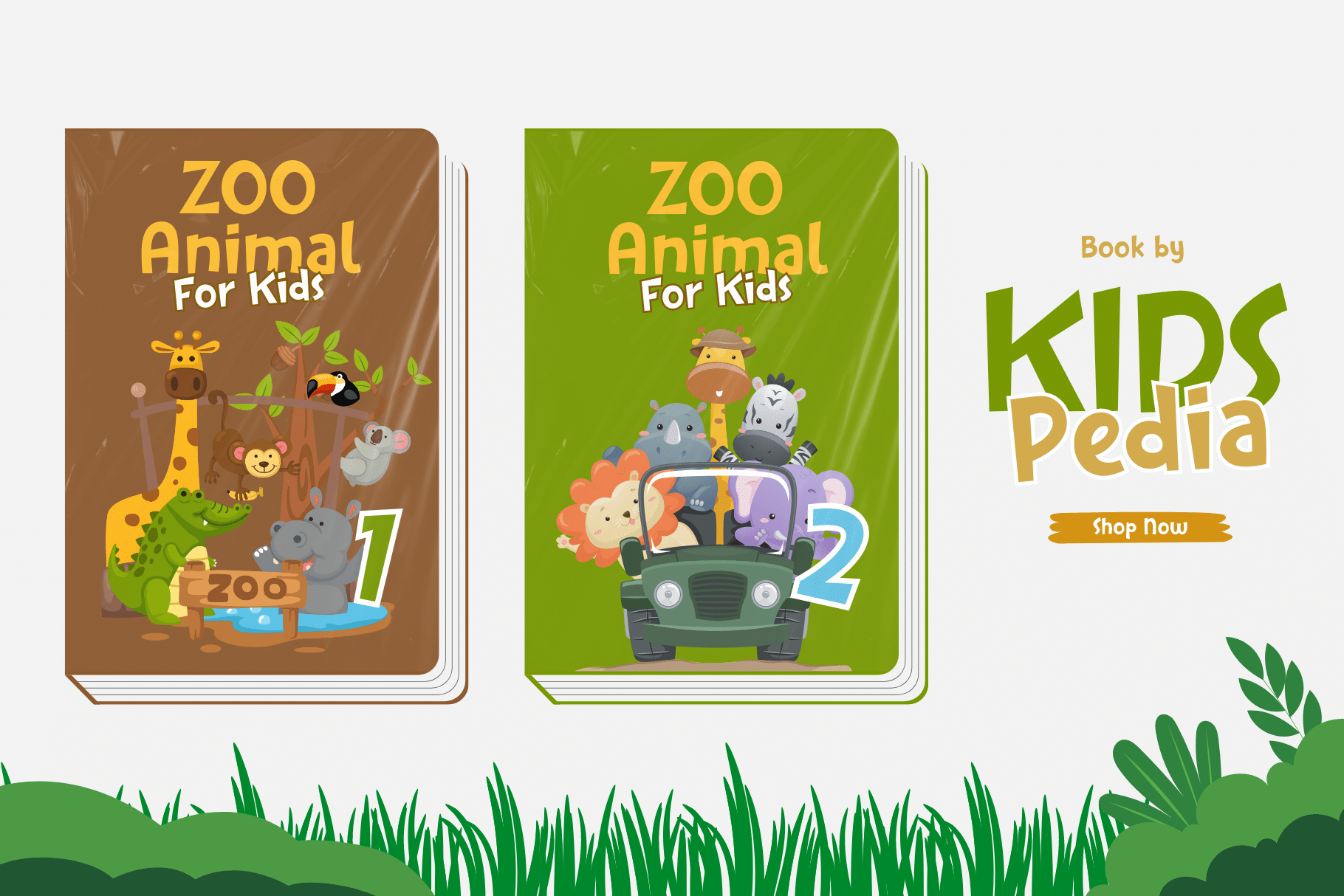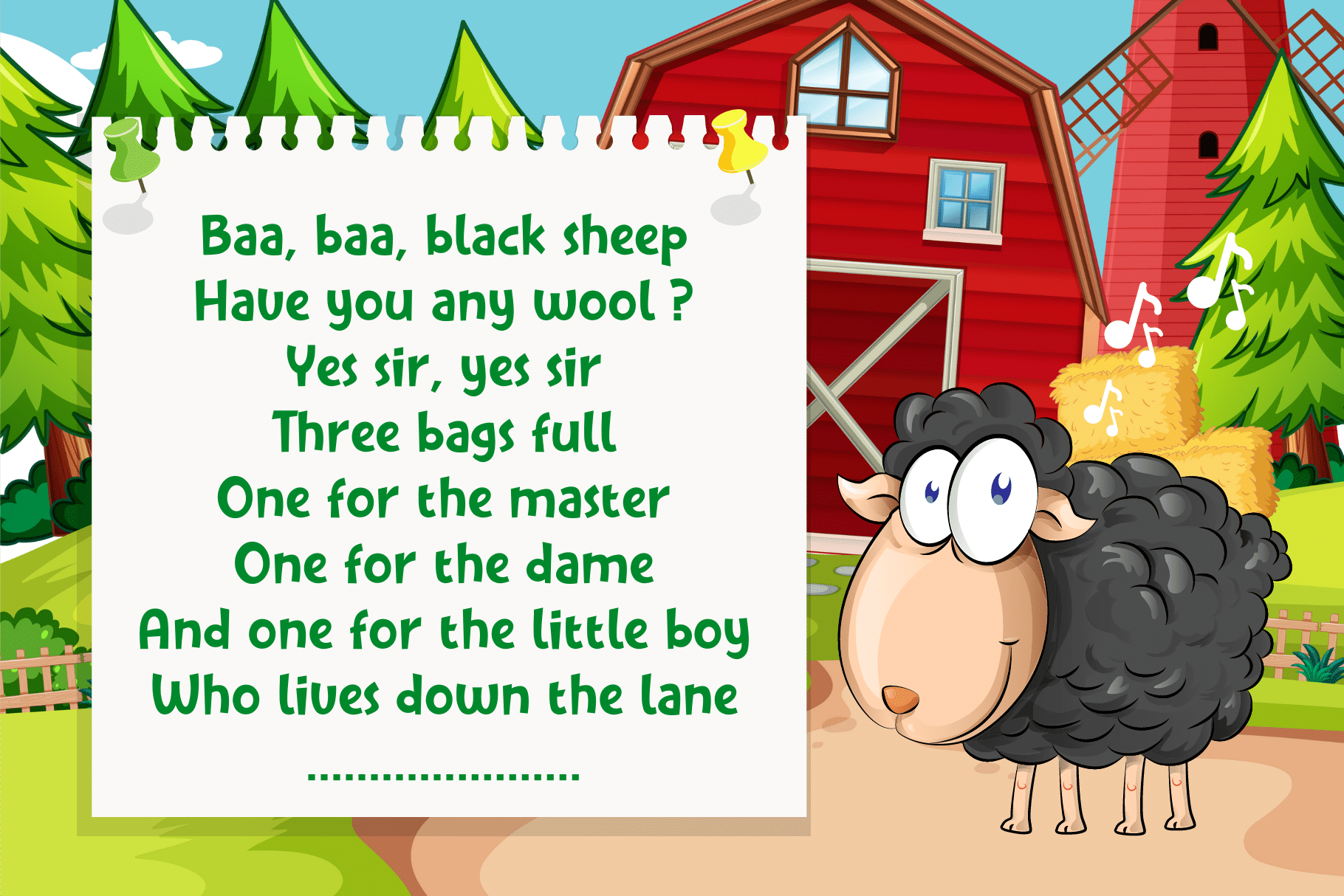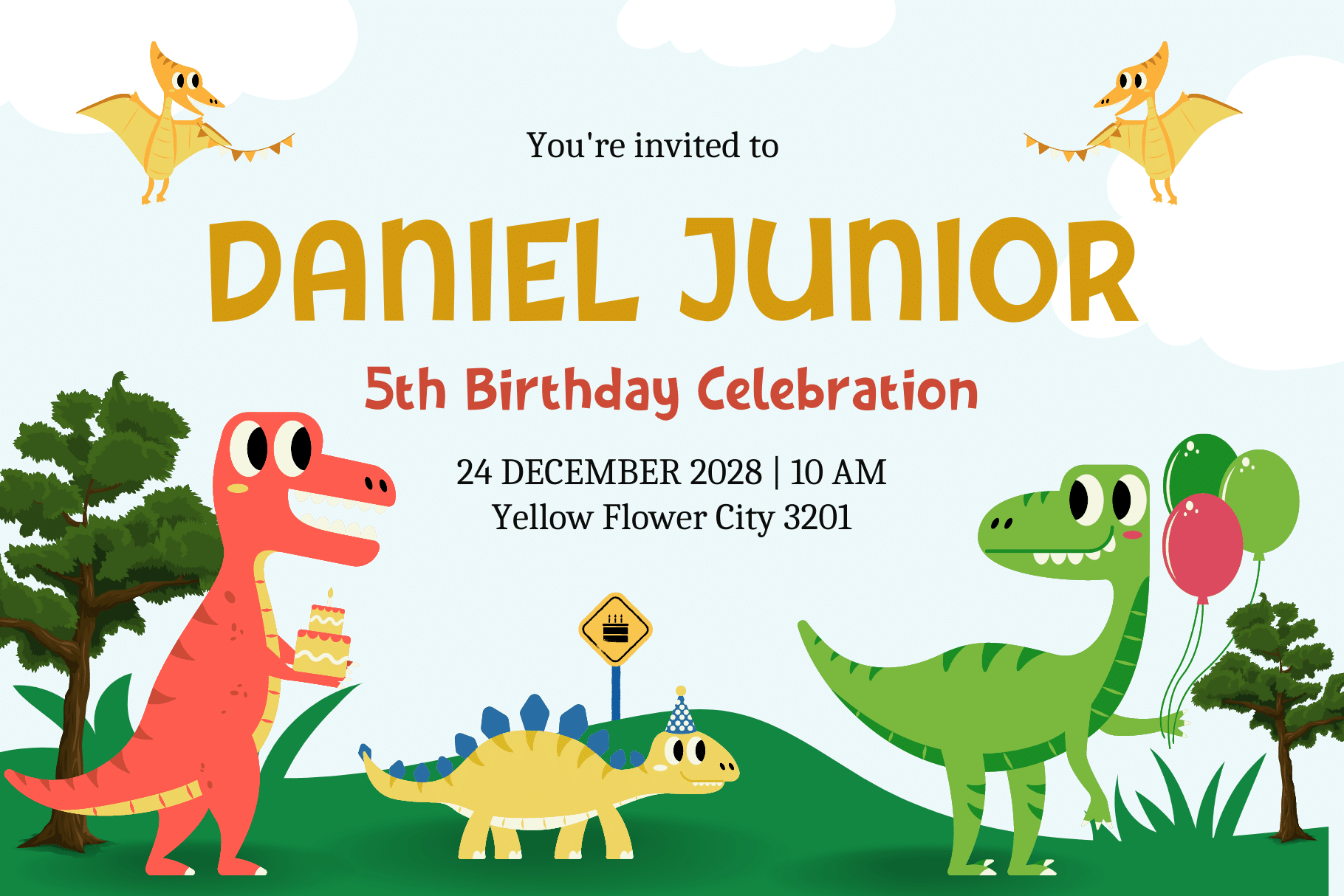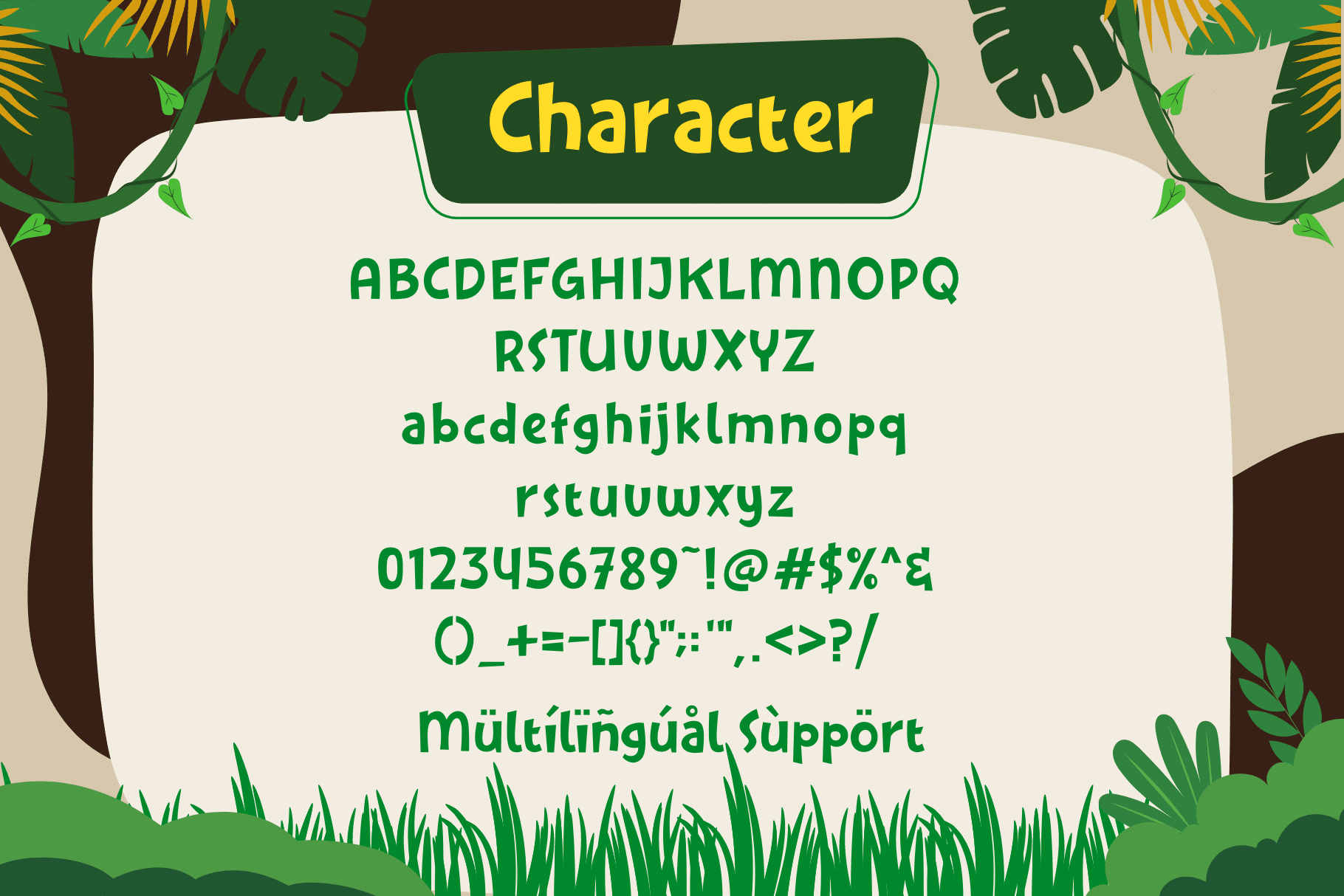
Kicau Mania Font
Kicau Mania is a playful font that captures the joy and nostalgia of childhood. With its charming letterforms and whimsical curves, it adds a fun and lighthearted vibe to any design. Perfect for children’s books, branding, and projects that need a playful touch. Let “Kicau Mania” bring back your childhood memories and spark joy in your designs.